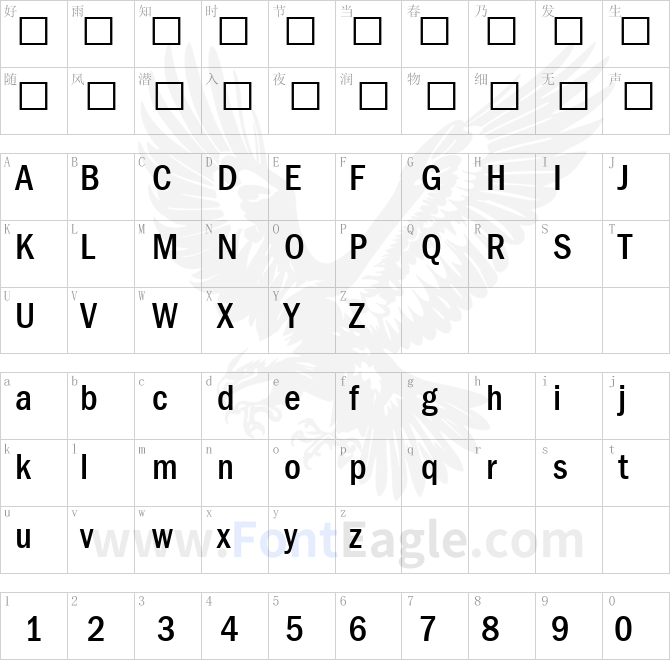
- Font name:Franklin Gothic Medium Cond
- Font Subfamily ID:Monotype – Franklin Gothic Medium Cond Regular
- Font Full Name:Franklin Gothic Medium Cond
- Postscript:FranklinGothic-MediumCond